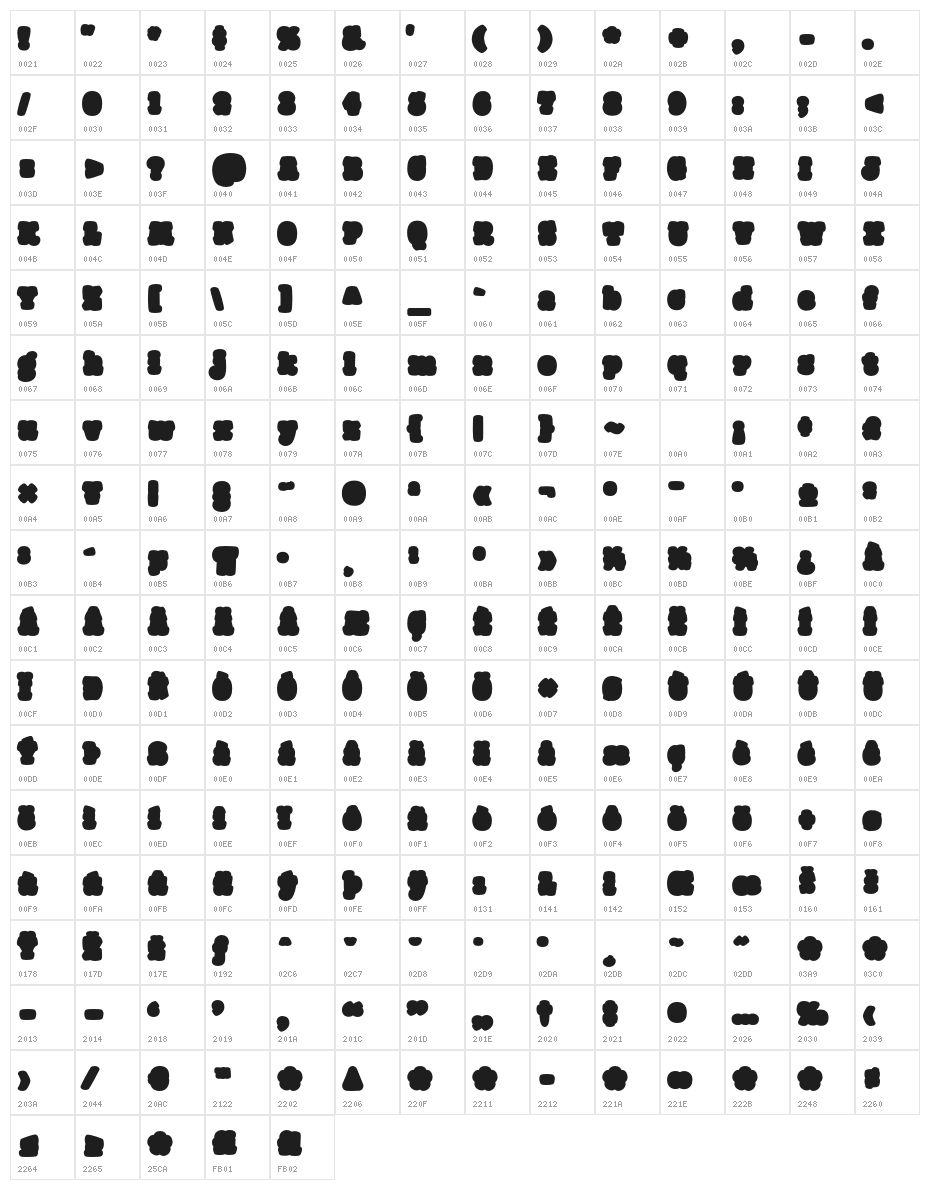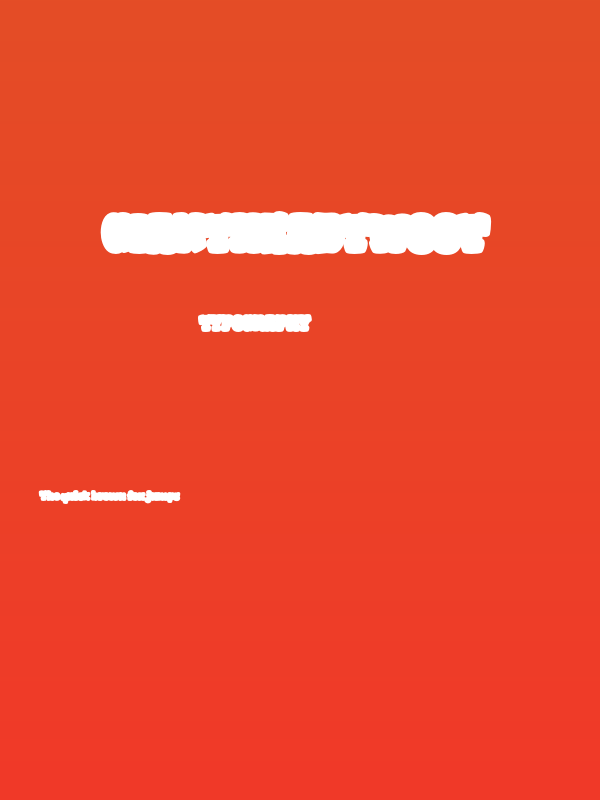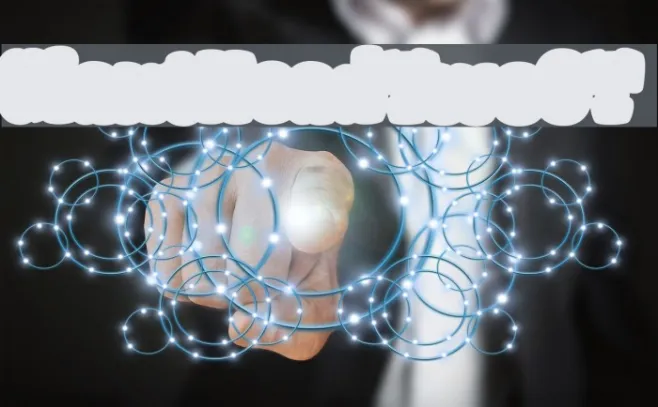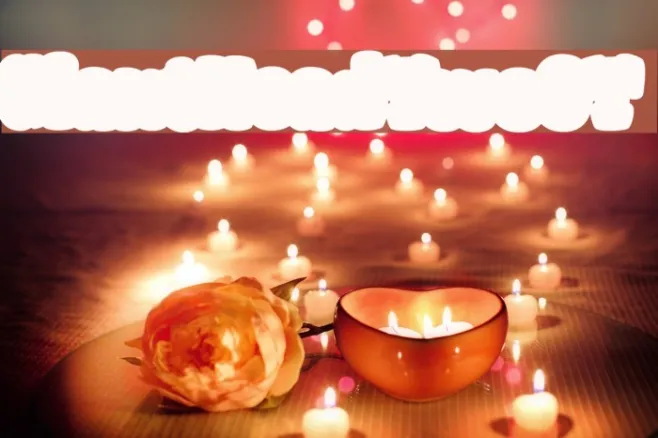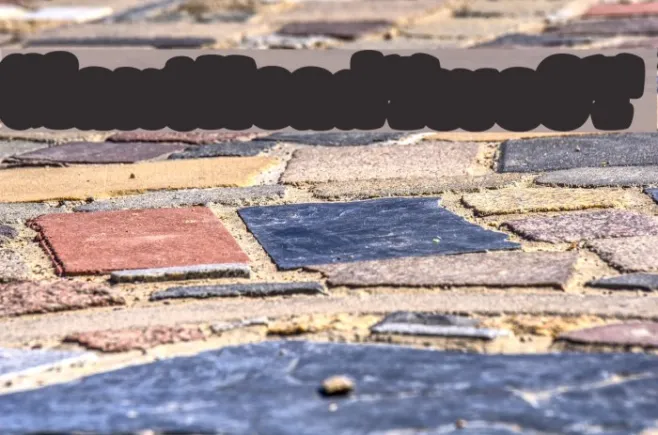
GiantHeadTwoOT Font
GiantHeadTwoOT Description
This font features a bold and playful design, characterized by its thick, rounded strokes and a bubbly appearance. The letters are heavily weighted, giving them a substantial presence on the page. The style is reminiscent of graffiti or comic book lettering, with exaggerated curves and a sense of movement. The characters are closely spaced, enhancing the dense and compact look of the text. This font exudes a sense of fun and creativity, making it ideal for projects that require a lively and energetic vibe. Its unique style ensures that it stands out, capturing attention with its bold and dynamic form.
| Overall Style | Playful, Energetic |
| Proposed Projects | Ideal for comic books, children's books, posters, and playful branding. |